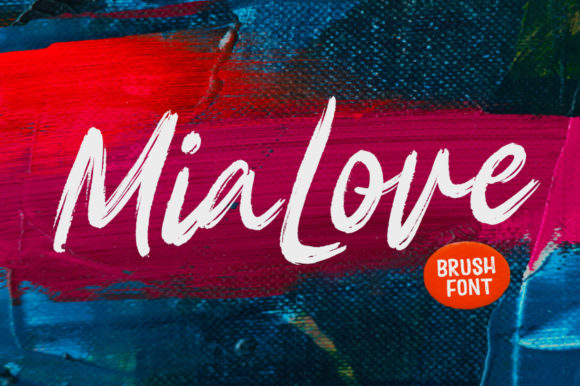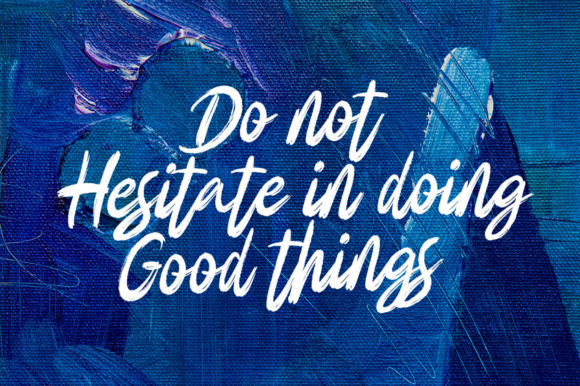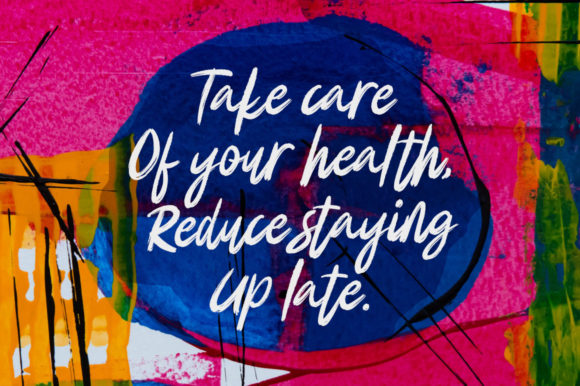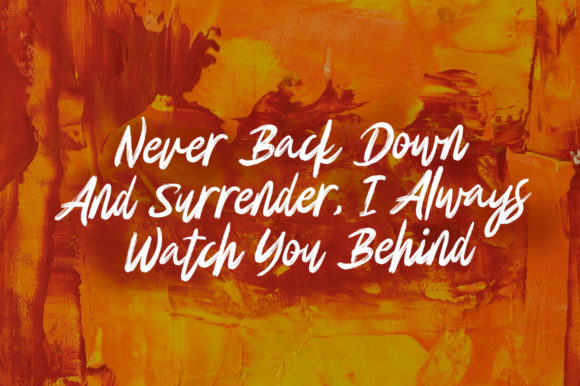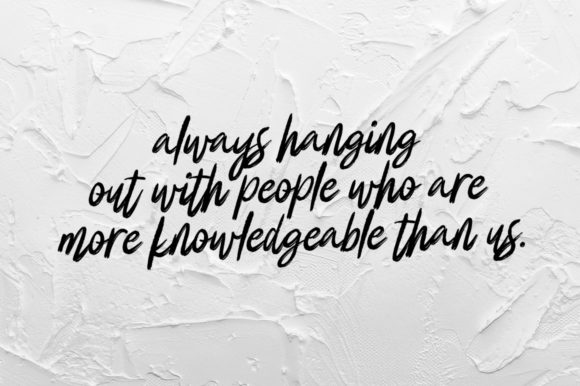
HomeScript FontsMia Love Font Script Fonts Mia Love Font FacebookXPinterestWhatsApp Mia Love Font Poster 2 Mia Love Font Poster 3 Mia Love Font Poster 4 Mia Love Font Poster 5 About Mia Love Font Mia Love is a bold and strong brush font with a unique feel. Get inspired by its contemporary authenticity! DOWNLOAD NOW People also explored Basketball Font Acroyear Memorial Hello World Font Adorasi Font Wedding Julia Font Spring Moment Font Domineers Font Summer Hellow Font 282 0 TagsMia Love Font Previous articleFillmade FontNext articleDosty Font LEAVE A REPLY Cancel reply Comment: Please enter your comment! Name:* Please enter your name here Email:* You have entered an incorrect email address! Please enter your email address here Website: Save my name, email, and website in this browser for the next time I comment. Personal Use Free Whitelight Personal Use Free Read more about this font Zeshane Personal Use Free Read more about this font Hunters Personal Use Free Read more about this font Color Personal Use Free Read more about this font BLOG Top 10 Handwritten Fonts That Elevate Your Designs Top 10 Handwritten Fonts That Will Elevate Your Designs Handwritten fonts bring a warm, personal touch to every creative project. Whether you're designing logos, invitations,... Top 7 Google Fonts Alternatives for Faster and Privacy-Friendly Web Design (2025) How to Cut Any Font on Cricut: Convert a Font to SVG (Free) The 10 Best Handwriting Fonts to Add Personality to Your Designs